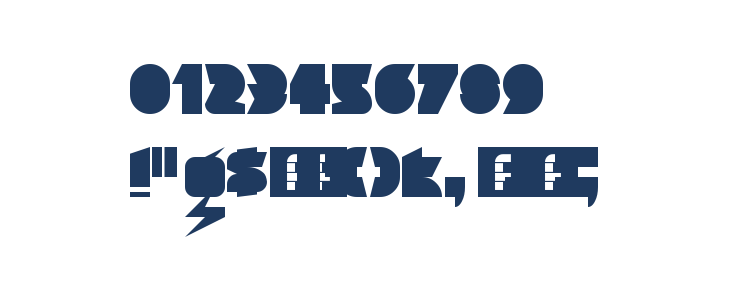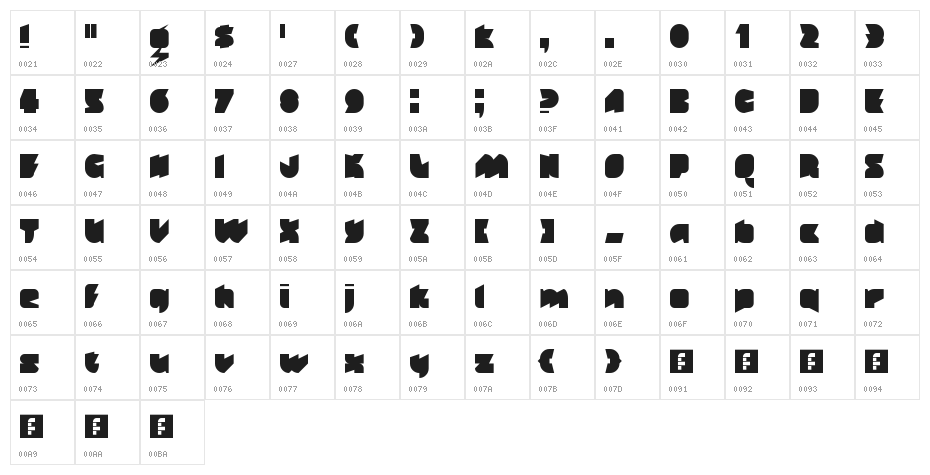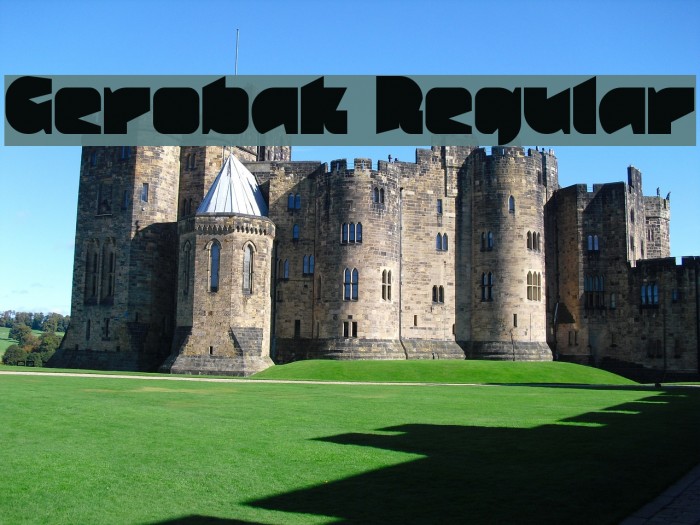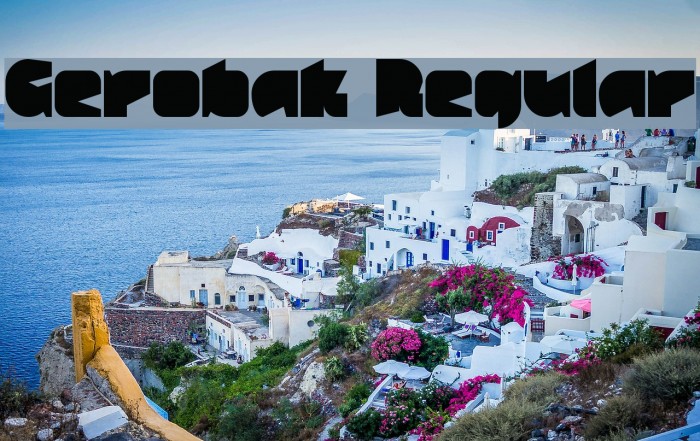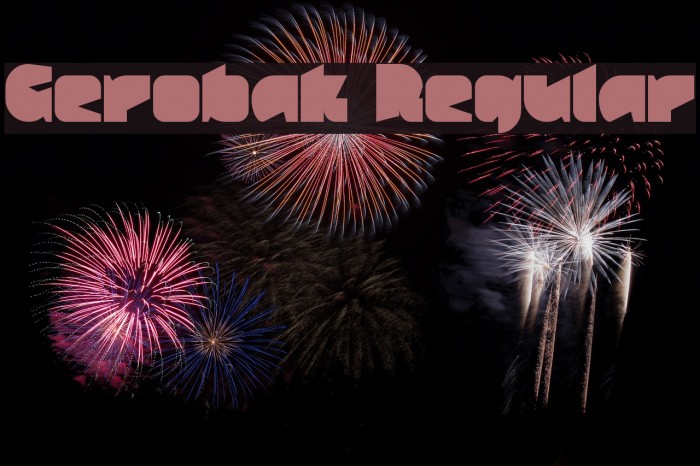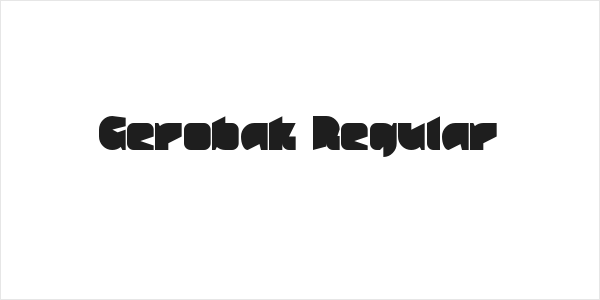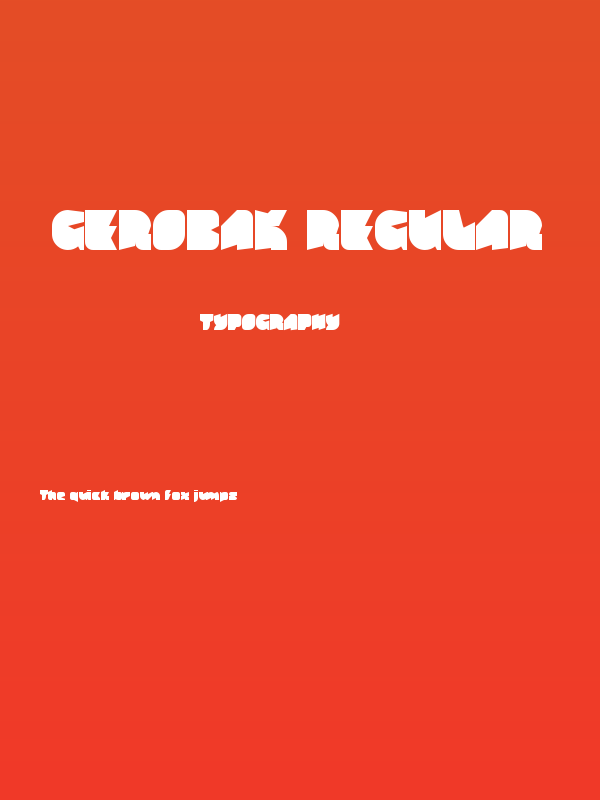
Gerobak Regular Font
Gerobak Regular Description
This font features a bold, geometric design with sharp angles and distinct, block-like shapes. The characters are constructed with a modern, futuristic aesthetic, emphasizing strong lines and unique forms. The uppercase and lowercase letters maintain a consistent style, with a focus on symmetry and balance. Numbers and special characters are equally bold and stylized, making them stand out. The overall appearance is striking and attention-grabbing, suitable for projects that require a strong visual impact.